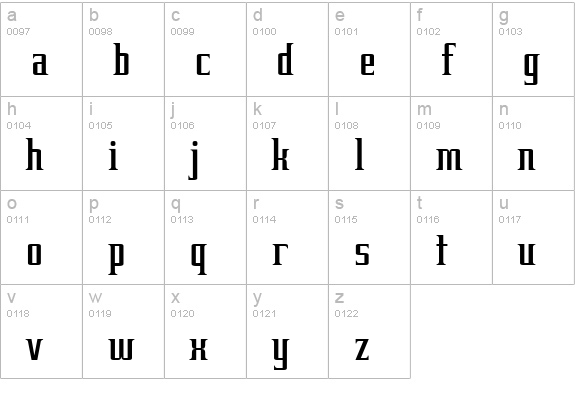
Equine Font Details
Equine font is a stunning typeface that embodies elegance and sophistication. Its graceful curves and sleek lines make it a perfect choice for projects that require a touch of class and refinement. Whether used for invitations, branding, or editorial design, Equine font exudes a timeless charm that captivates the eye. What makes Equine font even more appealing is that it is available for free download at FontsMarket.com. Yes, you read that right - this exquisite font can be yours without any cost, allowing you to elevate your designs without breaking the bank. Don't miss out on the opportunity to add Equine font to your collection and bring a touch of luxury to your next creative endeavor.